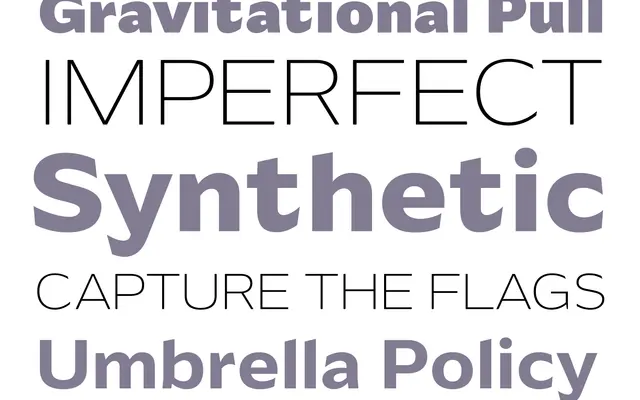
Campaign Sans
A sans-serif companion to the Campaign slab family, sharing its proportions across six weights from Thin to Black.
Campaign Sans extends the Campaign type family with a sans-serif variant that retains the core proportions and structure of its slab sibling while introducing its own set of details. Six weights run from Thin to Black, making it a flexible option for display and text use within the Campaign ecosystem. At pre-release stage, the full character of the family is still emerging.
Described as a sibling to the Campaign slab family, sharing its proportions and structure but with sans-serif detailing; the family relationship and naming convention point to a grotesque or humanist sans approach.